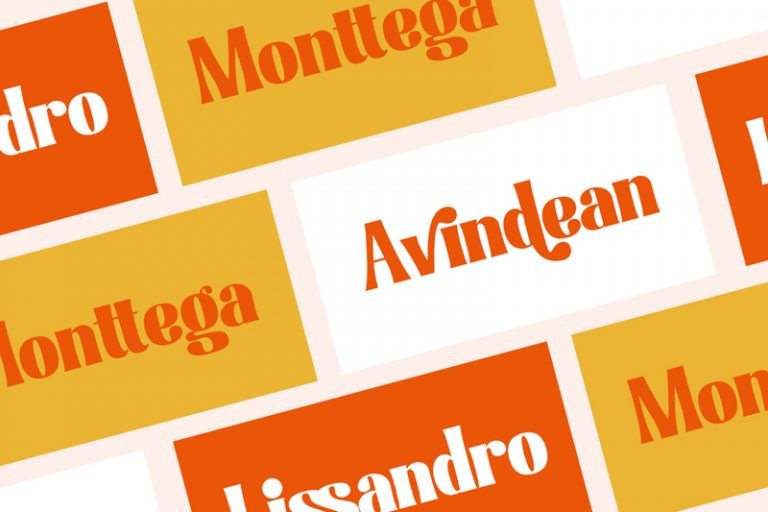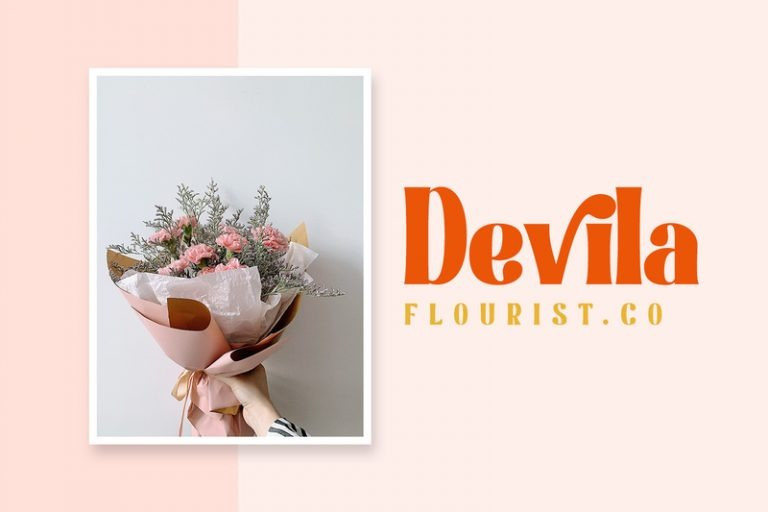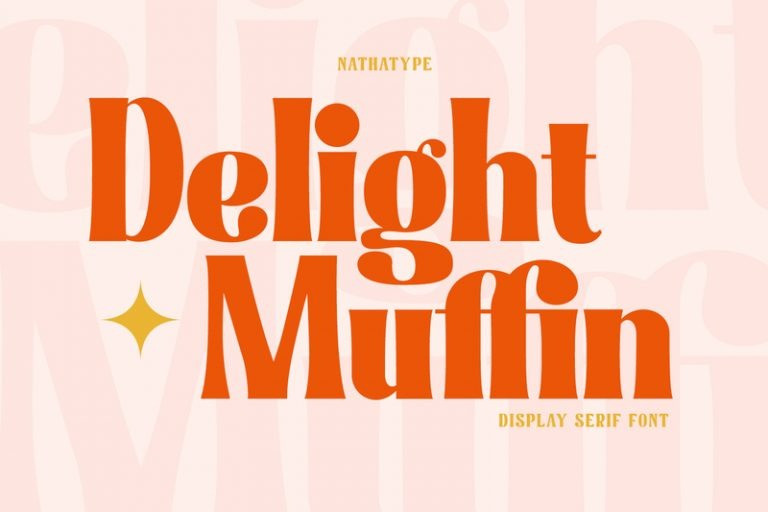
Delight Muffin Font
Delight Muffin Serif Font is a display serif font in thickly designed weights for modern, friendly, and stylish design purposes. Generally, every letter of this font is in rounded shapes with a few spaces given. The top and the bottom parts of the letter are the thinnest ones with hardly invisible differences between the thick and the thin lines, which contrast the low lines. With Delight Muffin’s legibility, it is possible to use the font in various text sizes.